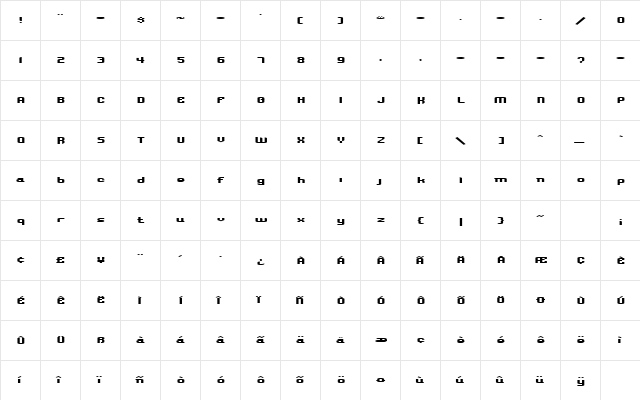
Blum Regular
Design Context for Blum Typeface
Blum takes a measured approach to typography — its balanced proportions and neutral character make it a reliable workhorse for both digital and print work.